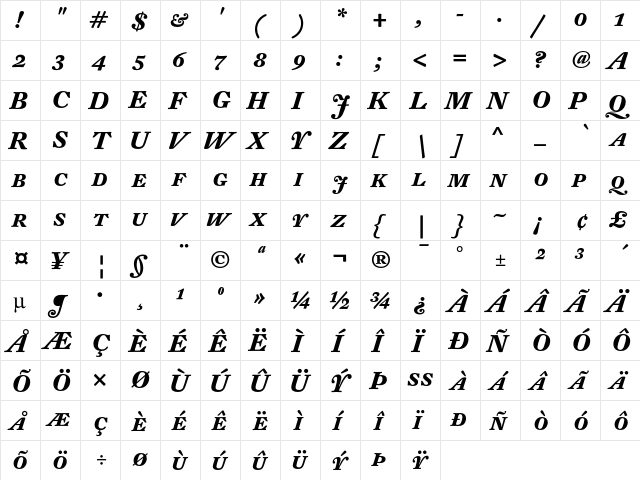
DTL Fleischmann T Caps Bold Italic
Design Context for DTL Fleischmann Typeface
DTL Fleischmann offers clean, dependable letterforms without strong stylistic allegiance, making it a practical choice for designers who need flexibility. The slanted form adds forward momentum and visual energy. Its bold stroke weight gives it real presence on the page.
Pro Tip: Use DTL Fleischmann for emphasis, pull quotes, and subheadings where its slanted energy can add rhythm to the layout.